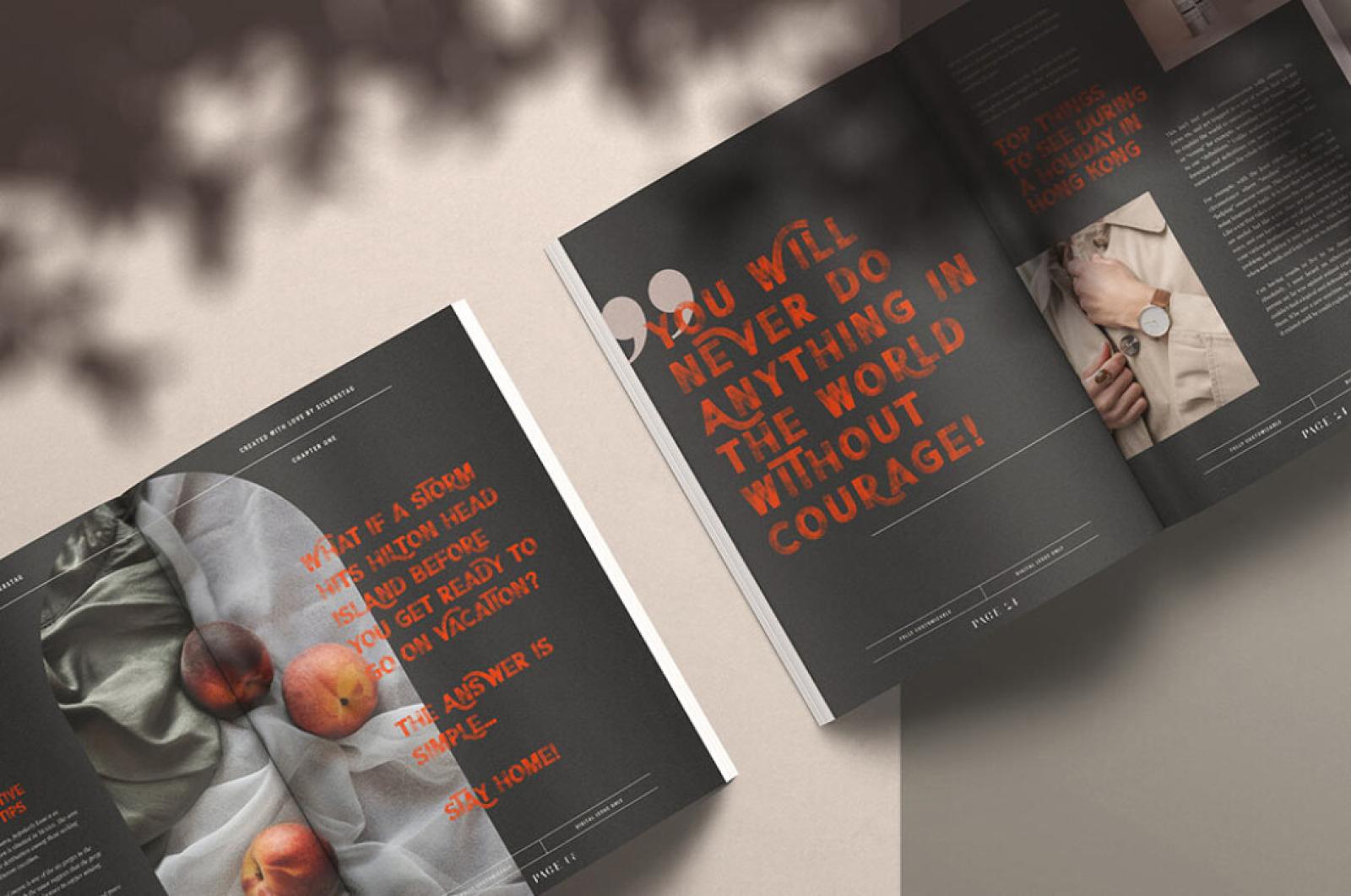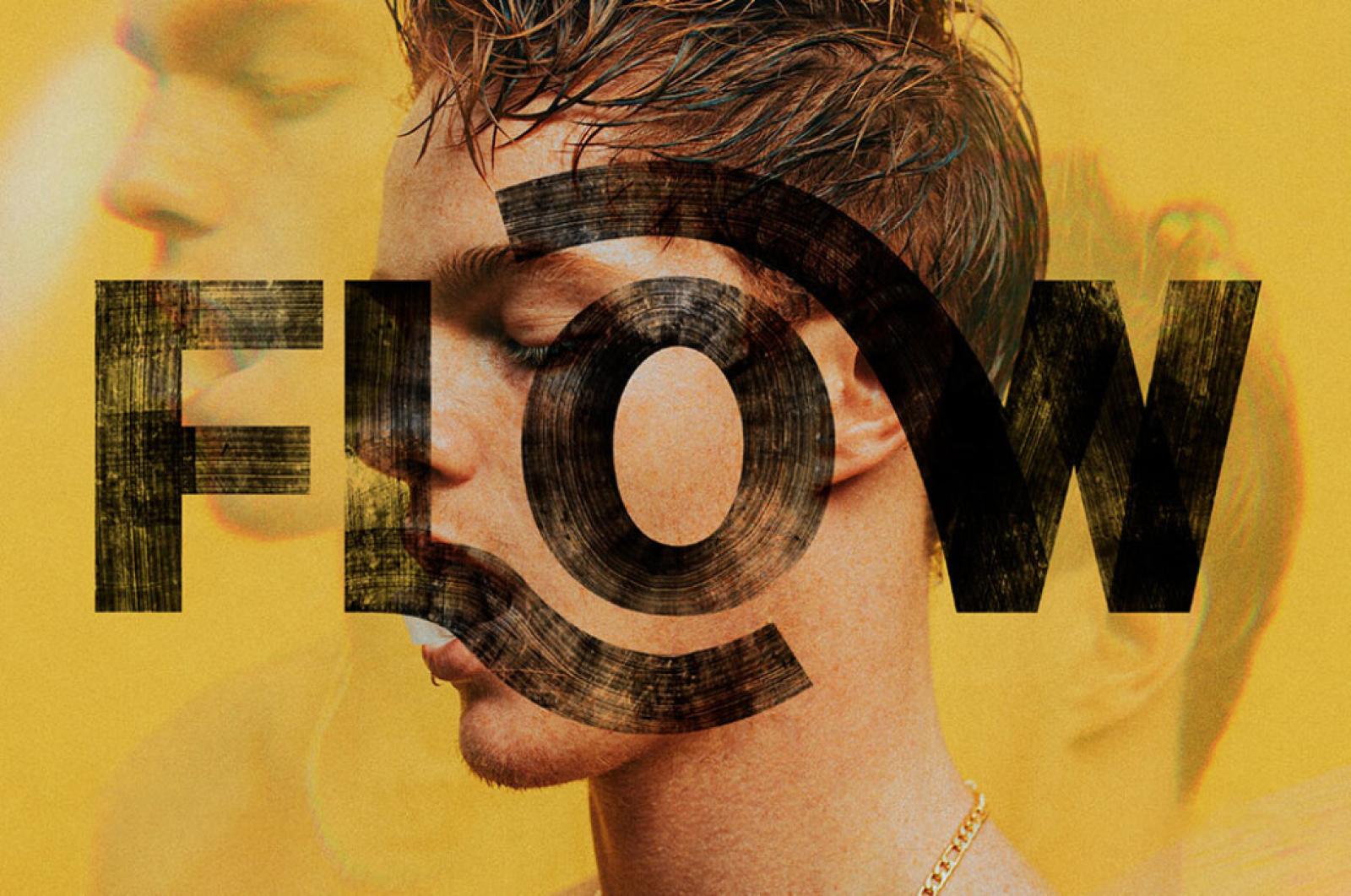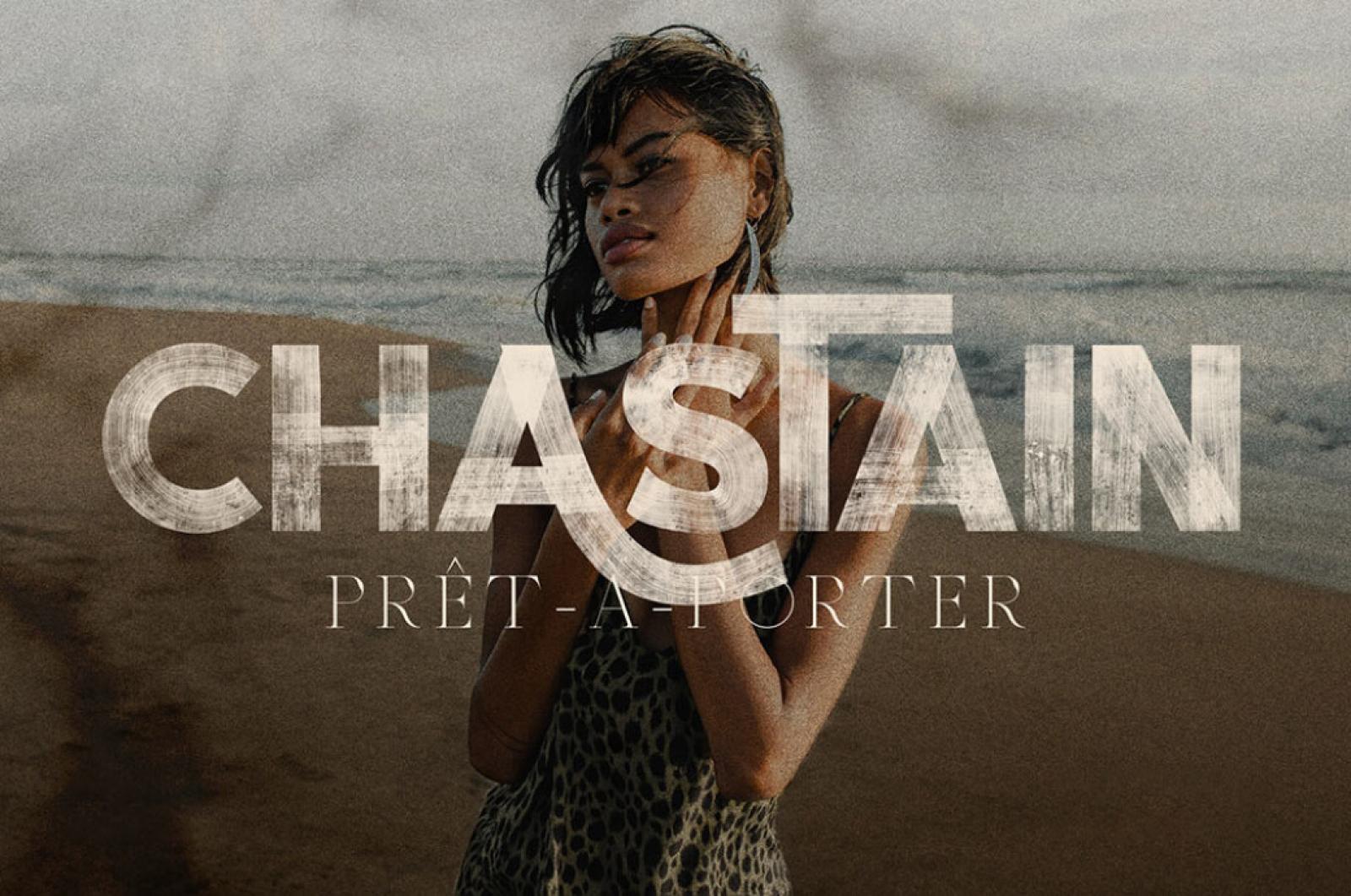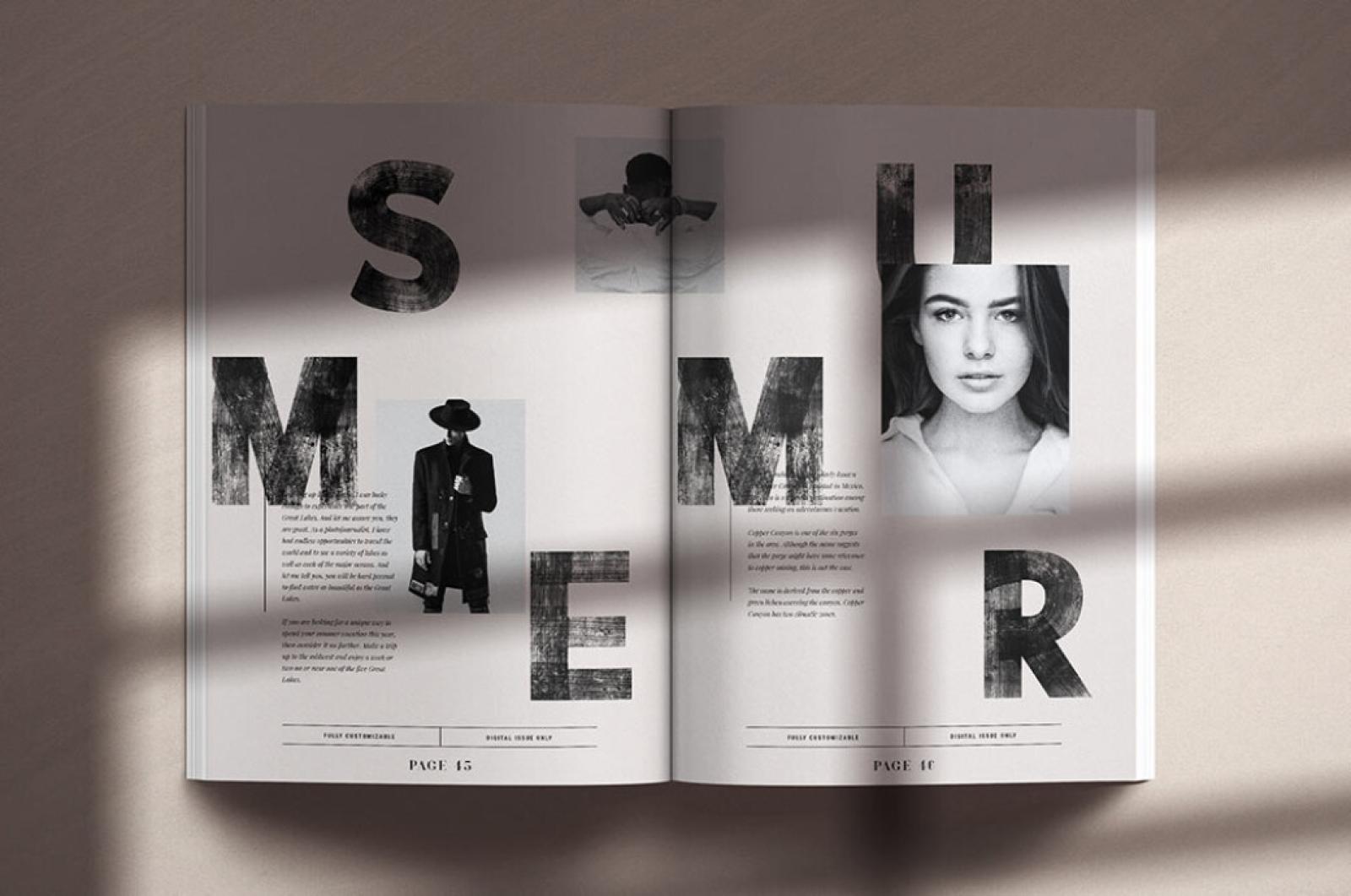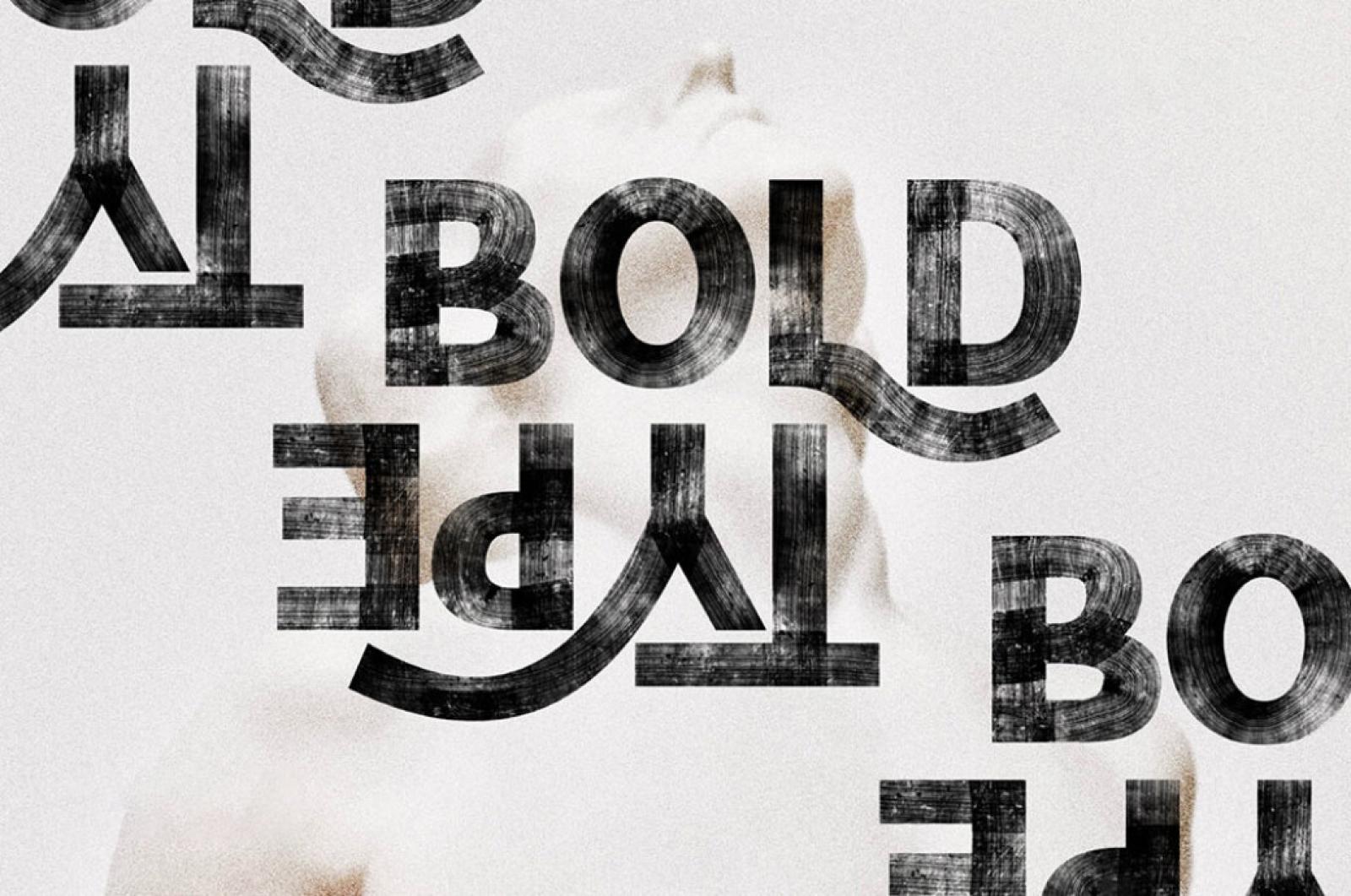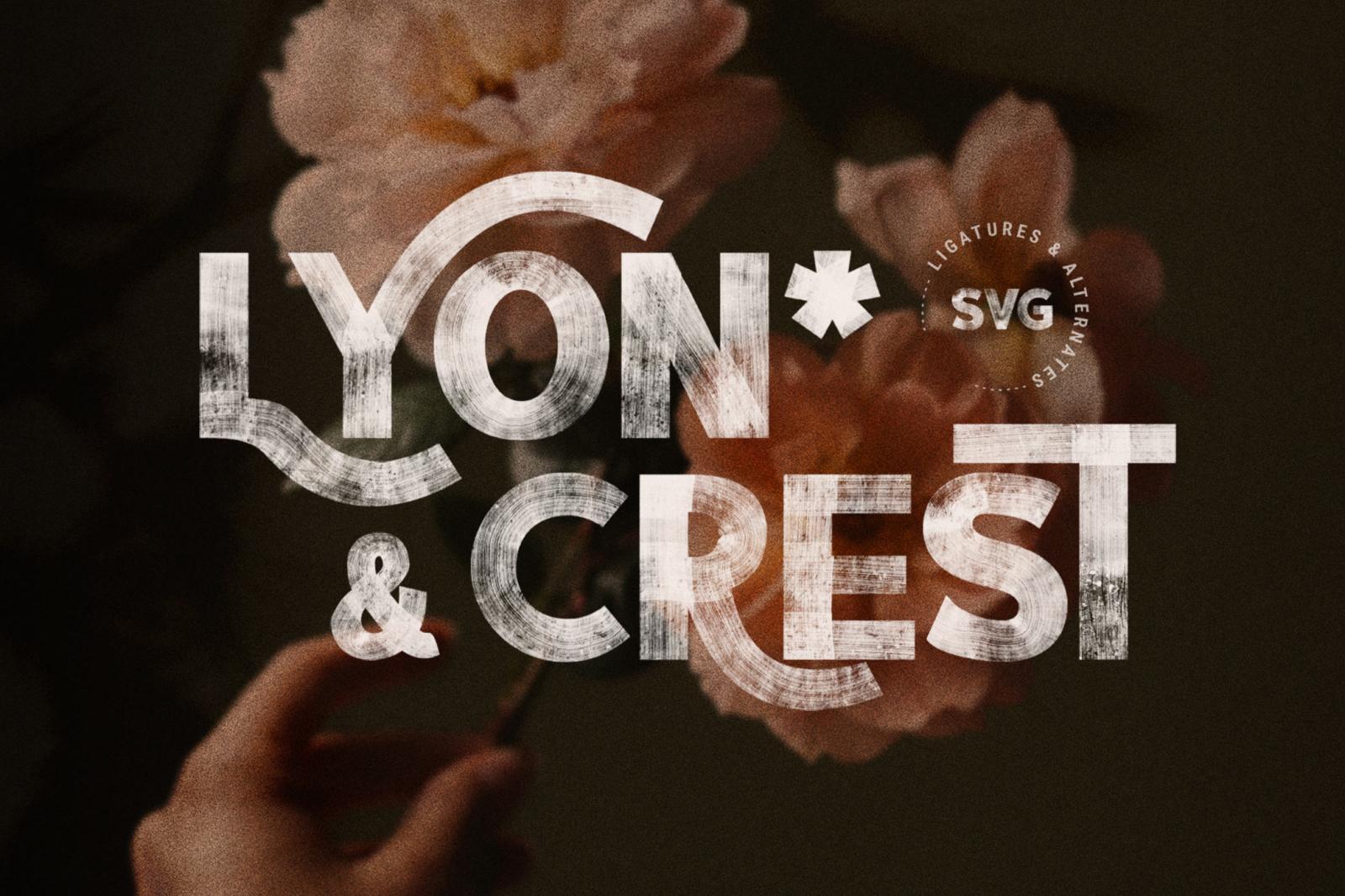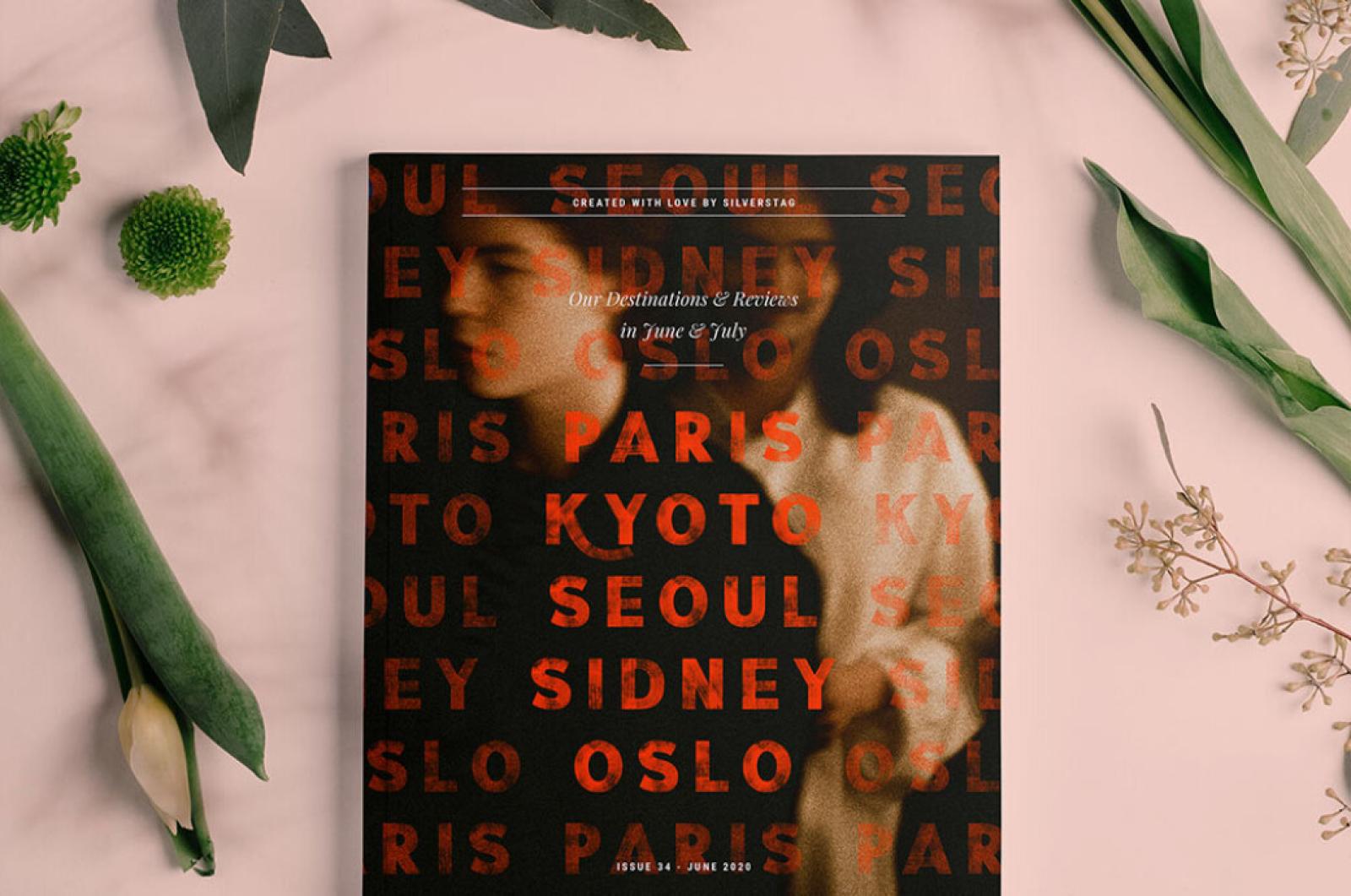
Lyon & Crest SVG Font
Are you ready for a brand new look and unique perspective in your typography? Look no more, Lyon & Crest is a handpainted SVG font that will make each of your projects 100% unique.
The true handpainted look will elevate your work and help you create some new and unique designs. It's the package, consisting of 2 font options: the one with a regular look and the other one in a brush style. A convenient division like this is extremely beneficial if you're aimed at delivering a coherent design with versatile typographic solutions. The bonus of 15+ ligatures and alternates unlocks the creation of artistic details and provides a handcrafted coziness. Add the type to any current project, it fits quite a wide variety of themes!